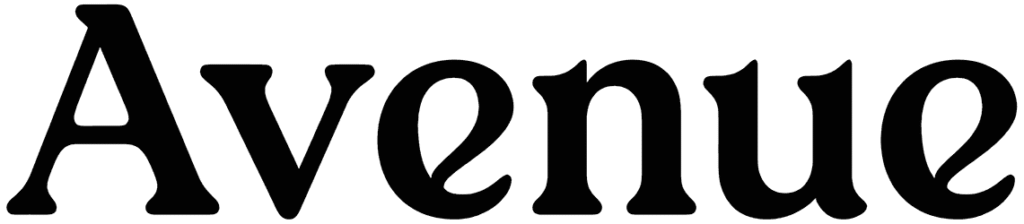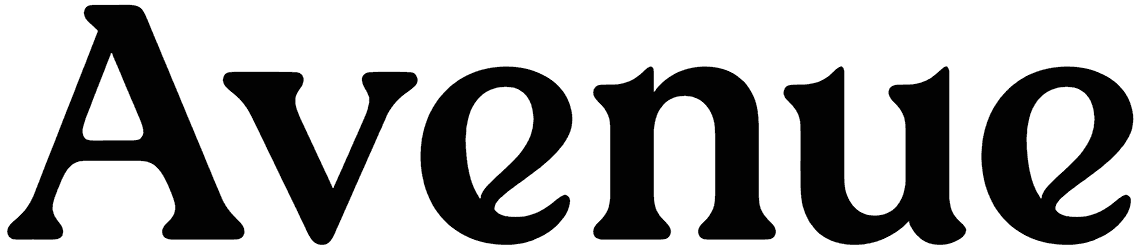
Avenue Font
There are numerous times when your design will be elegant with a serif font like this one. Avenue font has smooth letters with a nostalgic vibe that is going to be functional for countless projects. You can design a fashion week flyer, a business card for a holding company, or the like, and convey a confident vibe.